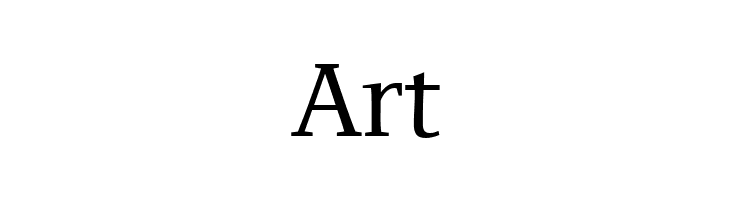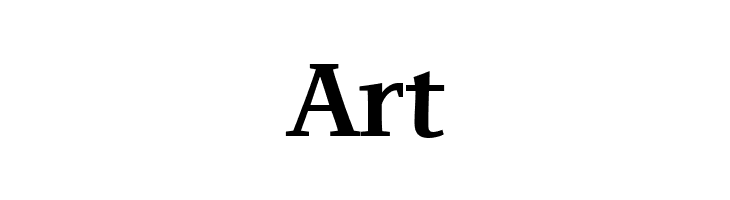
• Resavska BG
A classic serif font with a modern touch, offering elegance and readability.
• Resavska BG TT
A modern serif font with elegant lines and versatile applications.
• Resavska BG TT-Bold
A bold, classic serif font with strong strokes and pronounced serifs.
• Resavska BG TT-Bold Italic
A bold, italic serif font with a classic yet modern style.
• Resavska BG TT-Italic
An elegant serif italic font with smooth lines and moderate contrast.
• Resavska BG YU
A modern serif font with clean lines and elegant proportions.